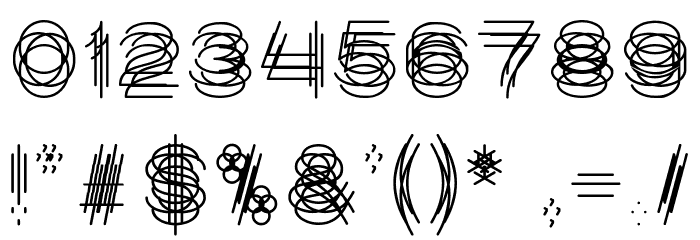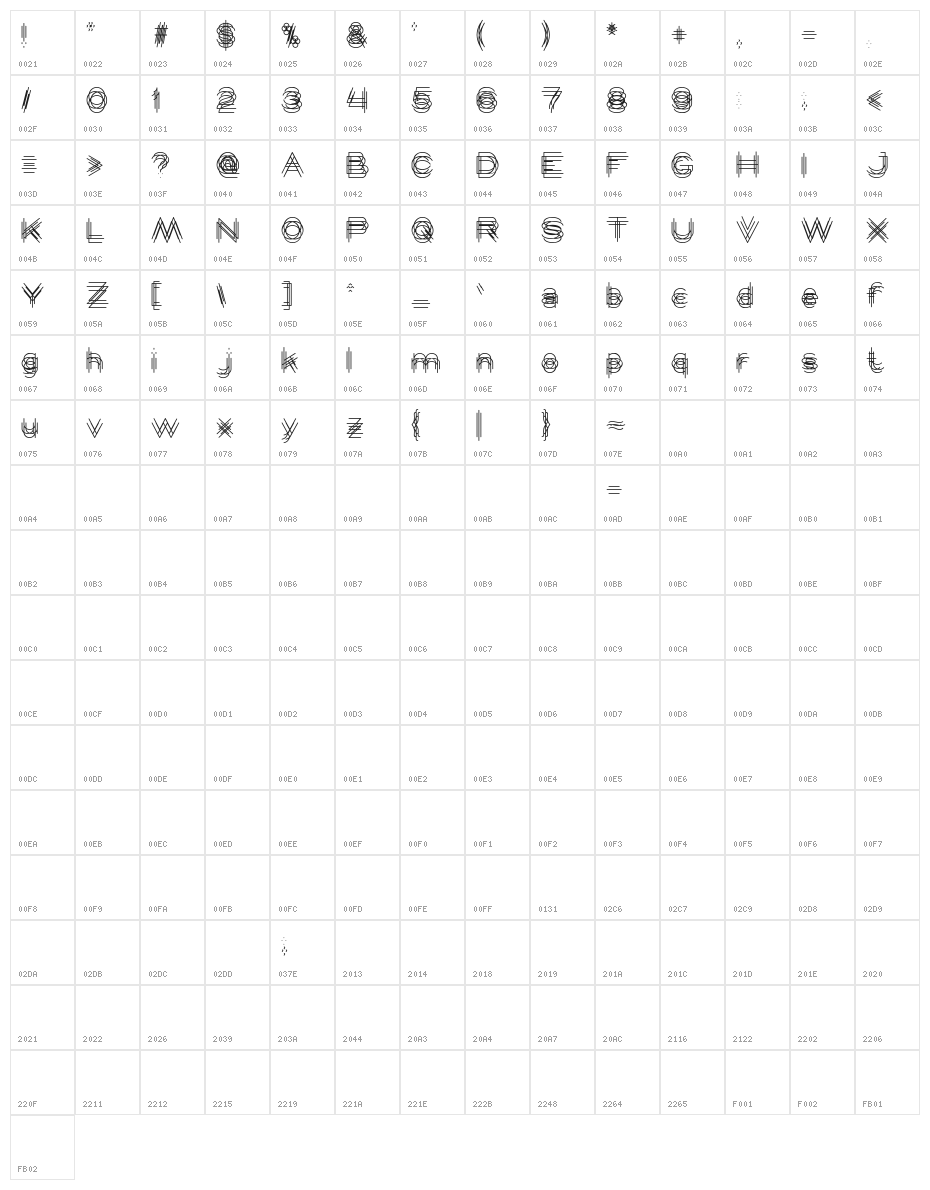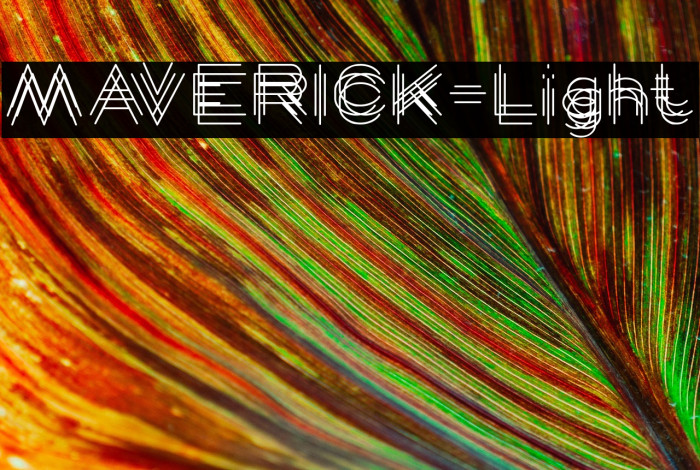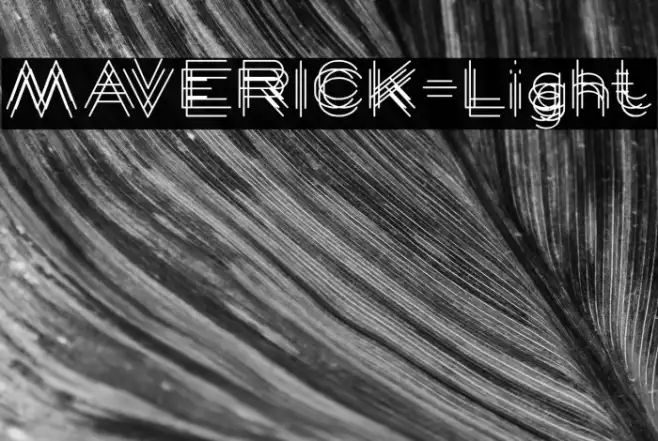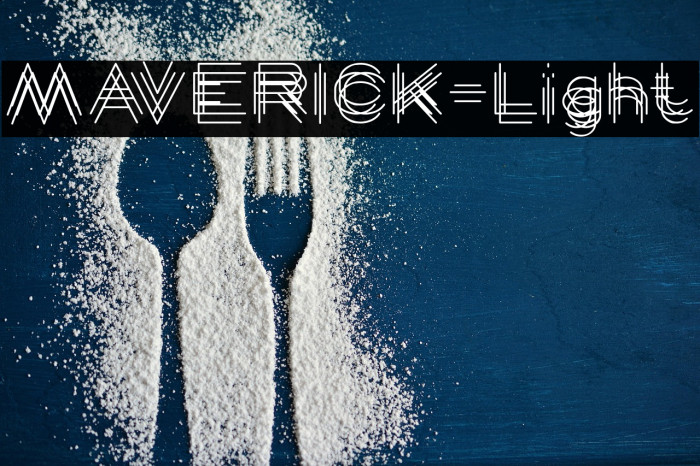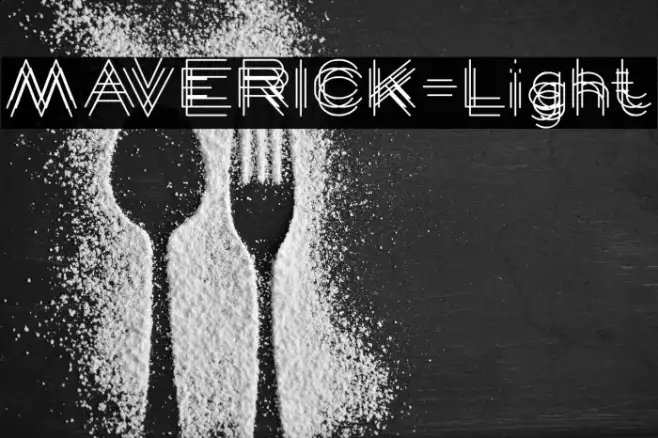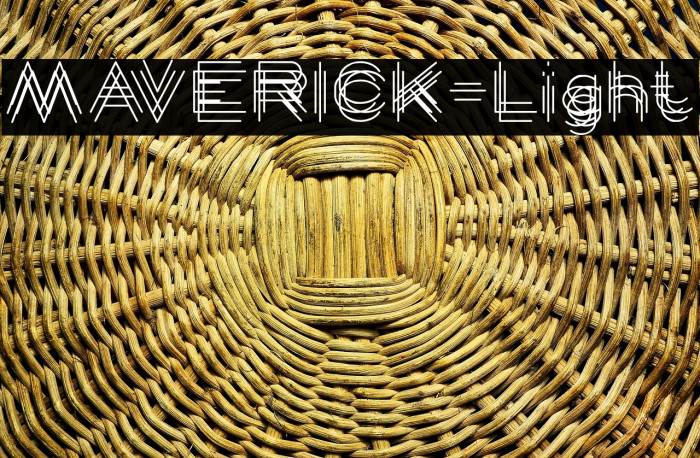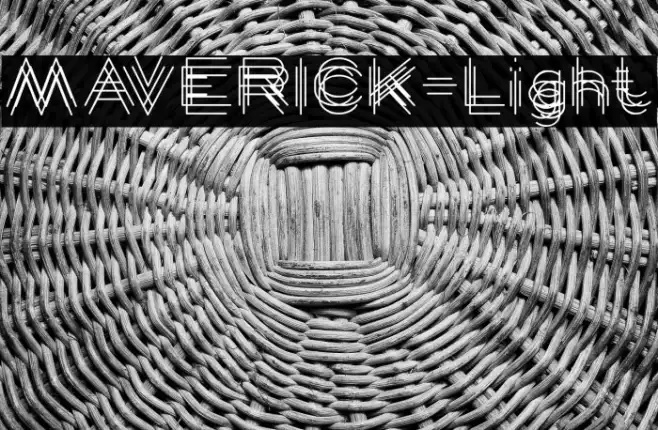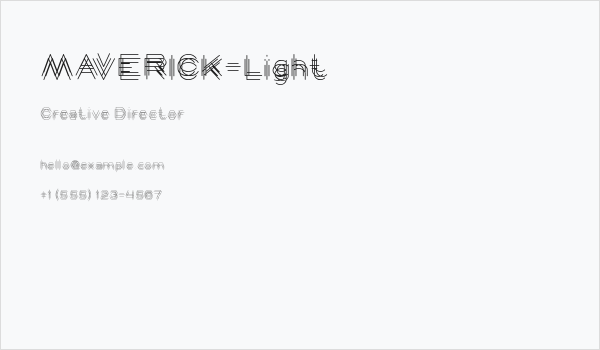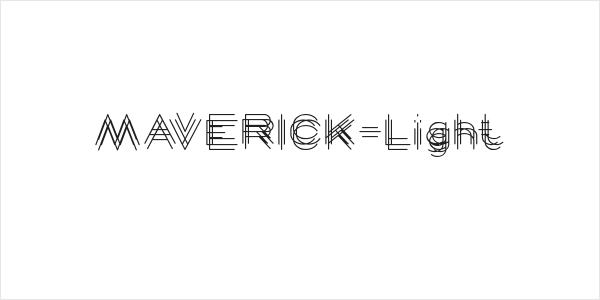
MAVERICK-Light Font
MAVERICK-Light Description
This font features a unique, layered design with multiple overlapping lines creating each character. The geometric structure is consistent across uppercase, lowercase, numbers, and special characters, giving it a cohesive and modern appearance. The overlapping lines add a sense of depth and complexity, making it visually striking and ideal for creative projects. The font maintains a uniform line thickness throughout, contributing to its modern and artistic style. Its distinct appearance makes it suitable for attention-grabbing headlines or artistic designs.
Use CaseHeadlines, Logos, Artistic designs
Proposed ProjectsIdeal for creative projects such as posters, album covers, branding, and any design requiring a bold, artistic statement.